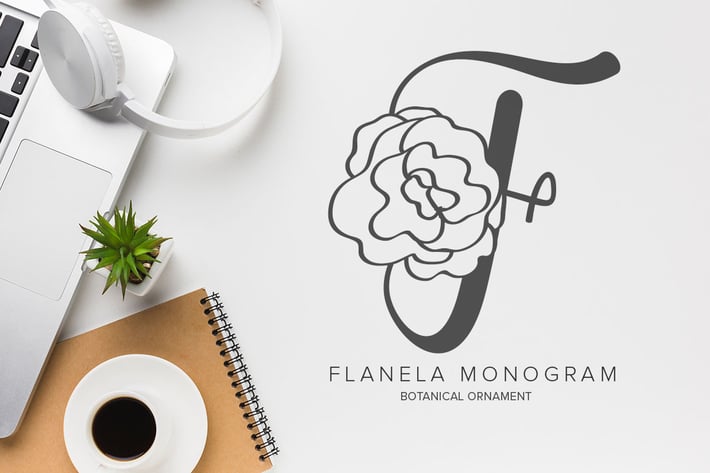
Flanela Monogram Font
Flanela Monogram is a gorgeous decorative font. Fall in love with its incredibly versatile style and use it to create lovely wedding invitations, beautiful stationary art, eye-catching social media posts, and much more!